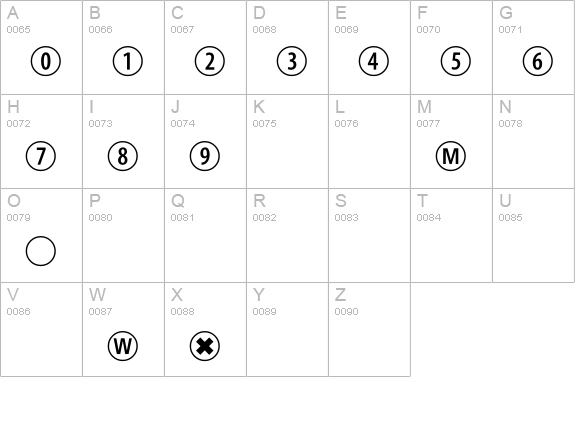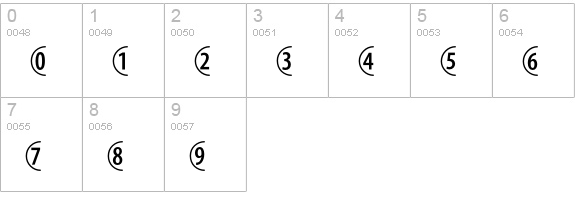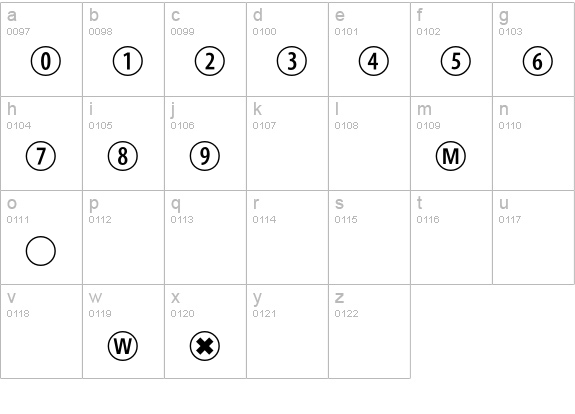
Combnumb1 Font Details
Combnumb1 font is a versatile and modern typeface that combines sharp edges with a sleek design. Its unique style is perfect for creating eye-catching headlines, logos, and branding materials. The font features a perfect balance of elegance and edge, making it suitable for a wide range of projects. What makes Combnumb1 font even more appealing is that it is available for free download at FontsMarket.com. This means you can easily access this stylish font and enhance your design projects without any cost. Whether you are a professional designer or a hobbyist looking to elevate your creations, Combnumb1 font is a fantastic choice that won't break the bank. Download it today and add a touch of sophistication to your designs!